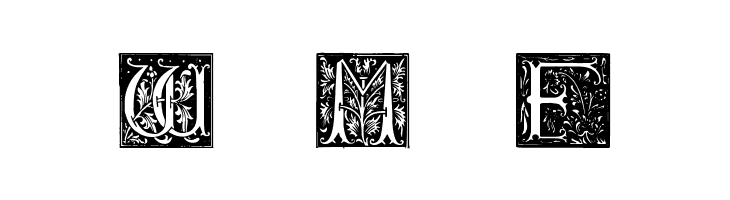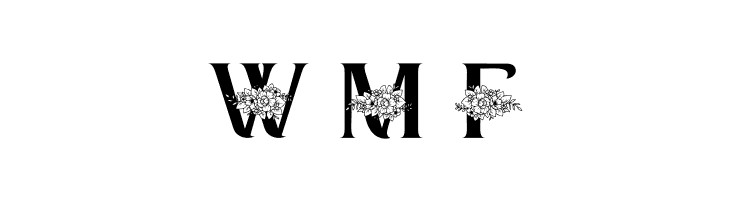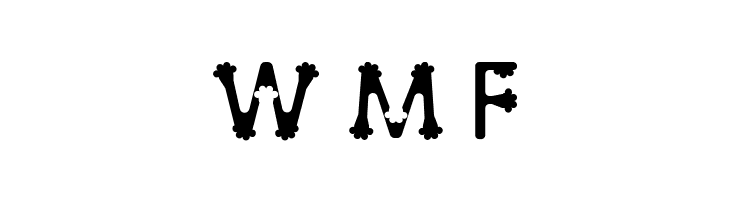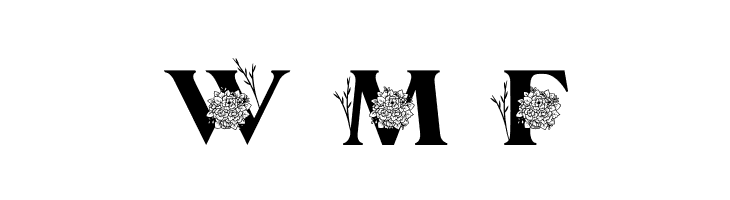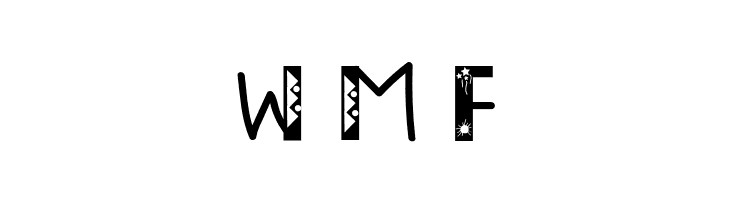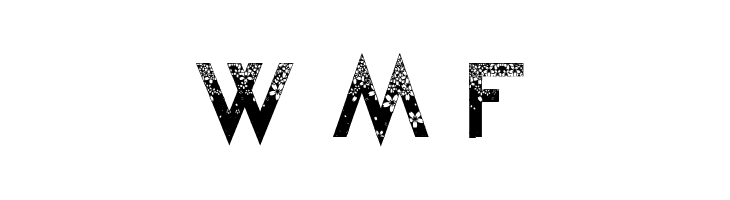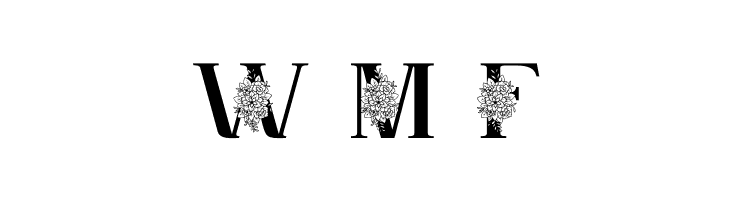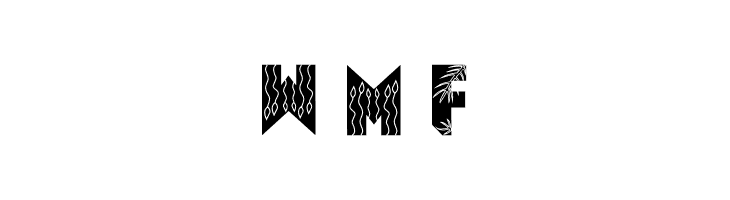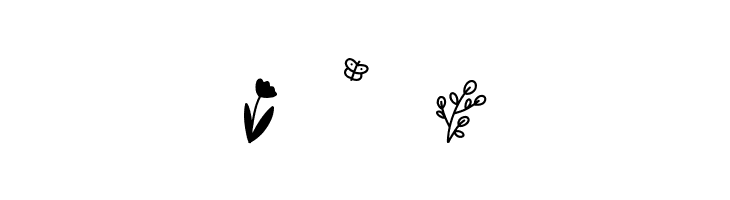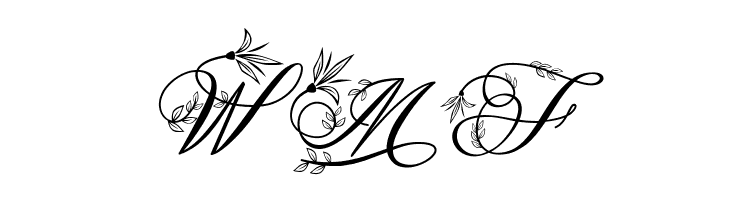
An ornate, decorative font with intricate floral patterns in each letter.
A decorative font with floral and vine embellishments for a whimsical, nature-inspired look.
A decorative font with floral embellishments and a whimsical style.
A decorative serif font with intricate floral embellishments.
A decorative serif font with intricate floral patterns integrated into each character.
A decorative font with floral embellishments and bold, artistic letters.
A playful, floral-themed decorative font with bold, rounded characters.
A playful and decorative font with floral and star motifs.
A decorative font with floral patterns, ideal for creative and elegant designs.
A decorative font with floral patterns integrated into bold, uppercase letters.
A bold ornamental dingbat collection with floral, geometric, and flourish motifs.
A decorative font with intricate floral patterns within bold uppercase letters.
A whimsical, decorative script font with floral embellishments.
A decorative font with floral and vine embellishments, perfect for creative projects.
A playful, decorative font with bold letters and floral embellishments.
A bold, decorative font with floral embellishments on uppercase letters.
A bold, decorative font with floral embellishments on each character.
A bold, decorative font with floral embellishments on each letter.
A decorative, floral-themed script font with bold, flowing letters.
An ornate, decorative font with intricate carvings and floral embellishments.
An ornate, decorative font with intricate floral embellishments and vintage charm.
A bold, decorative font with floral embellishments on each character.
A bold, decorative font with floral accents on each character.
A decorative font with bold letters filled with intricate floral patterns.
A whimsical set of botanical and floral illustrations with a hand-drawn style.
Hand-drawn floral illustrations with a whimsical, decorative style.
An ornate, decorative font with intricate floral patterns on each character.
An ornate, monogram-style font with floral embellishments.
A decorative font with bold, rounded characters filled with floral patterns.
An elegant script font with ornate floral embellishments and flowing lowercase letters.
An elegant, decorative script font with floral embellishments.
A bold, decorative font with floral patterns inside each character.
Ornamental dingbat font with mandala and floral motifs.
( Fonts by Letterayu )
A bold, decorative font with intricate floral patterns in each character.